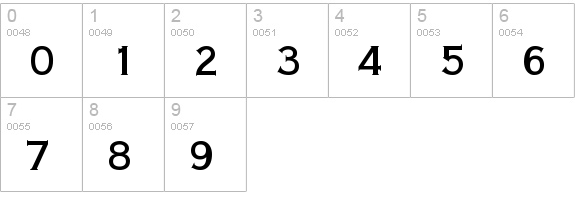
Copperplate Condensed SSi Bold Condensed Font Details
Copperplate Condensed SSi Bold Condensed is a strong, high-contrast, condensed-width variant in the Copperplate typeface family \xE2\x80\x94 well suited to headlines, attention-grabbing titles, and strong calls-to-action.
Copperplate Condensed SSi Bold Condensed font is a sleek and sophisticated typeface that exudes elegance and professionalism. Its bold condensed design makes it perfect for creating eye-catching headers, titles, and logos. The sharp and clean lines of this font add a modern touch to any design project. What sets Copperplate Condensed SSi Bold Condensed font apart is its versatility and readability, making it suitable for a wide range of applications, from branding and advertising to editorial design and packaging. Whether you're looking to make a statement or convey a sense of authority, this font delivers with its bold presence and refined style. And the best part? Copperplate Condensed SSi Bold Condensed font is available for free download at FontsMarket.com. So you can easily access this premium font without any cost, making it a valuable addition to your font collection. Don't miss out on the opportunity to elevate your designs with the timeless appeal of Copperplate Condensed SSi Bold Condensed font.